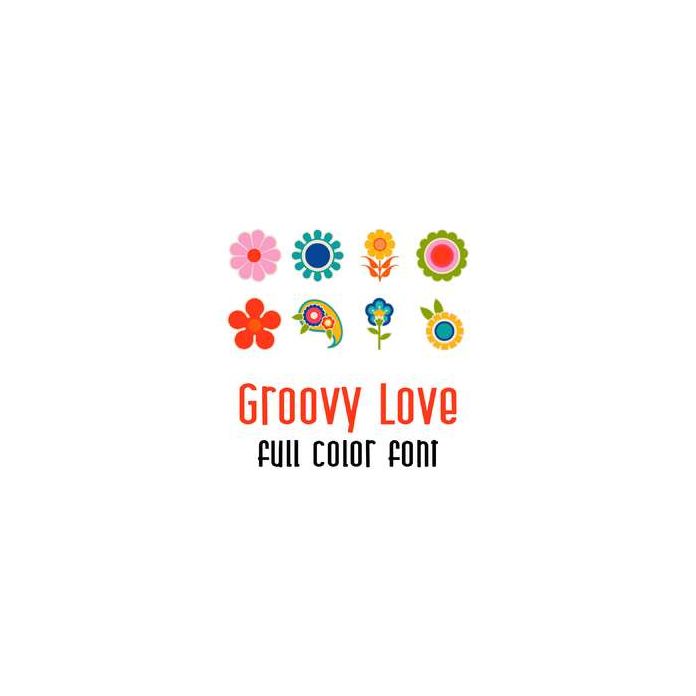
This adorable full color doodlebat font features fun and groovy 70's styled florals. Perfect for cards, crafts, gifts, decor, scrap book pages, planner stickers and more! Also perfect for Mother's Day!